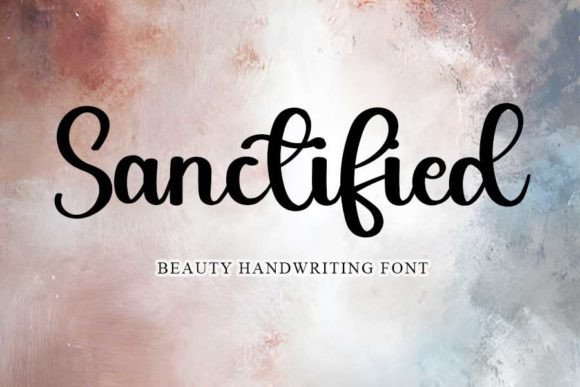
Introducing the Sanctified Font - A Mesmerizing Script Font Family
Unleash the beauty of handwritten elegance with the Sanctified Font, an exquisite script font family designed to captivate hearts and create everlasting impressions. The Sanctified Font is the perfect choice for adding a touch of charm and sophistication to your creative projects.
Crafted with intricate details and flowing strokes, this font family will bring life to your designs, whether you're creating logos, wedding stationery, photography watermarks, modern websites, or any other project that calls for a touch of elegance.
Immerse yourself in the world of Sanctified and discover its incredibly distinct and timeless style. Each letter has been carefully designed to stand out, ensuring that your designs will leave a lasting impact.
With the Sanctified Font, you'll have the power to effortlessly create spectacular designs that exude elegance and sophistication. Its versatility knows no bounds, making it the perfect choice for a wide range of projects.
Make a statement with the Sanctified Font, and let your creativity shine through. Experience the magic of handwritten beauty and elevate your designs to new heights.